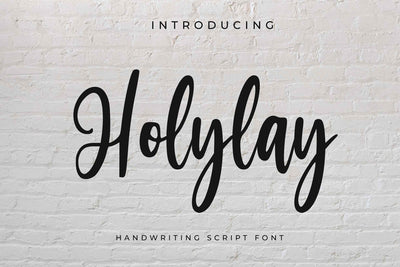
Holylay - Handwritten font
Holylay is an elegant and dainty handwritten font that features sweet and delicate characters. This original look will appeal to a wide range of crafty ideas, from letterheads and titles to stationery.